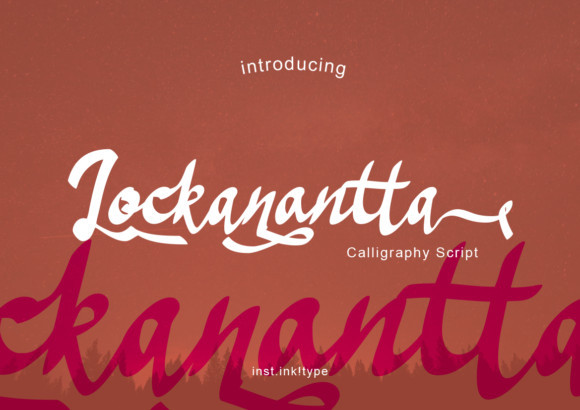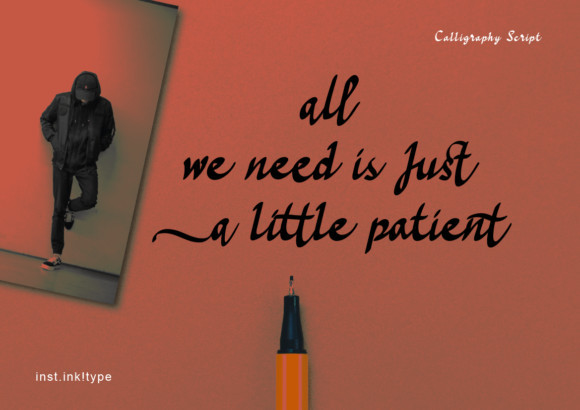
Lockanantta Font
Lockanantta is an elegant and casual script handwritten font. Get inspired by its authentic feel and use it to create gorgeous wedding invitations, beautiful stationary art, eye-catching social media posts, and cute greeting cards.